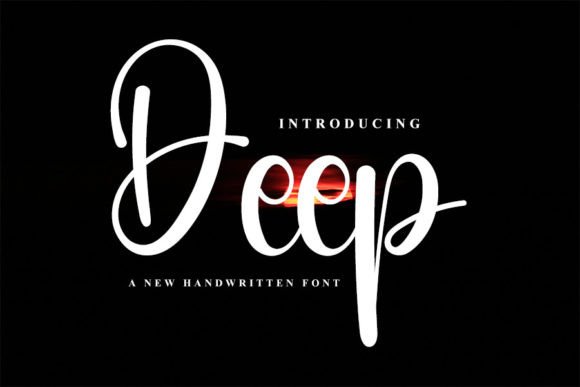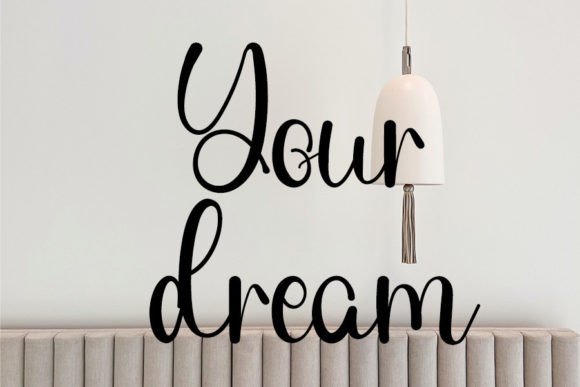
Deep Font
Elevate Your Designs with Deep Handwritten Font
The Deep Handwritten Font is a refined, elegant typeface crafted to bring sophistication and charm to your design projects. With its graceful curves and neat construction, this script font adds a personal yet professional feel to any piece. Whether you’re designing for print or digital platforms, Deep helps your work leave a lasting impression.
Ideal for Invitations, Branding, and Stylish Layouts
Deep is incredibly versatile, making it suitable for a wide range of design applications. Use it for wedding invitations, greeting cards, thank-you notes, or personal stationery. It also works perfectly for logo design, product packaging, and brand visuals—especially for boutique, fashion, beauty, or handmade businesses.
Its balance of formality and friendliness makes it equally effective for both personal and commercial projects.
A Script That Feels Handwritten and Polished
What makes the Deep Handwritten Font stand out is its ability to mimic natural handwriting while remaining sleek and polished. Each letter is carefully crafted with soft curves, gentle slants, and consistent spacing, creating a harmonious and flowing text style.
Despite its elegance, Deep remains highly legible. You can use it confidently in large headers or small text without sacrificing readability or visual appeal.
Works Seamlessly in Both Print and Digital Formats
Whether you’re designing for print-on-demand products, web graphics, or editorial layouts, Deep maintains its quality across all sizes and platforms. It’s excellent for high-resolution prints as well as responsive digital designs.
For extra impact, pair Deep with a minimalist serif or sans-serif font. This contrast highlights the handwritten script and creates a clean, modern look that’s ideal for both luxury and lifestyle projects.
Why Designers Love Deep Handwritten Font
Here’s why Deep is a favorite among creative professionals:
• Elegant and neat handwritten script style
• Perfect for invitations, branding, and upscale layouts
• Clear readability across all sizes and formats
• Works well with both modern and classic font pairings
Add Elegance and Depth to Every Design
In summary, the Deep Handwritten Font offers a sophisticated yet personal touch that enhances the quality of your work. With its timeless charm and versatile usability, it’s an excellent choice for anyone looking to add elegance, emotion, and uniqueness to their designs.
If you’re searching for a handwritten font that combines clean structure with artistic flow, Deep is the perfect typeface to elevate your creative projects.